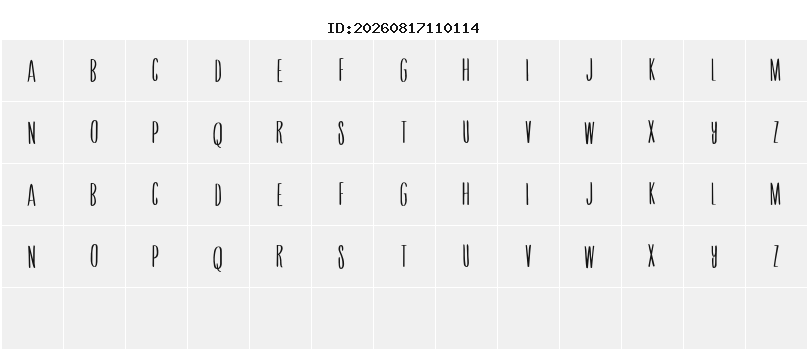
Sombody To Love.otf is a modern, elegant sans-serif font designed for ultimate readability and visual harmony. Perfect for branding, headlines, web design, and print materials.